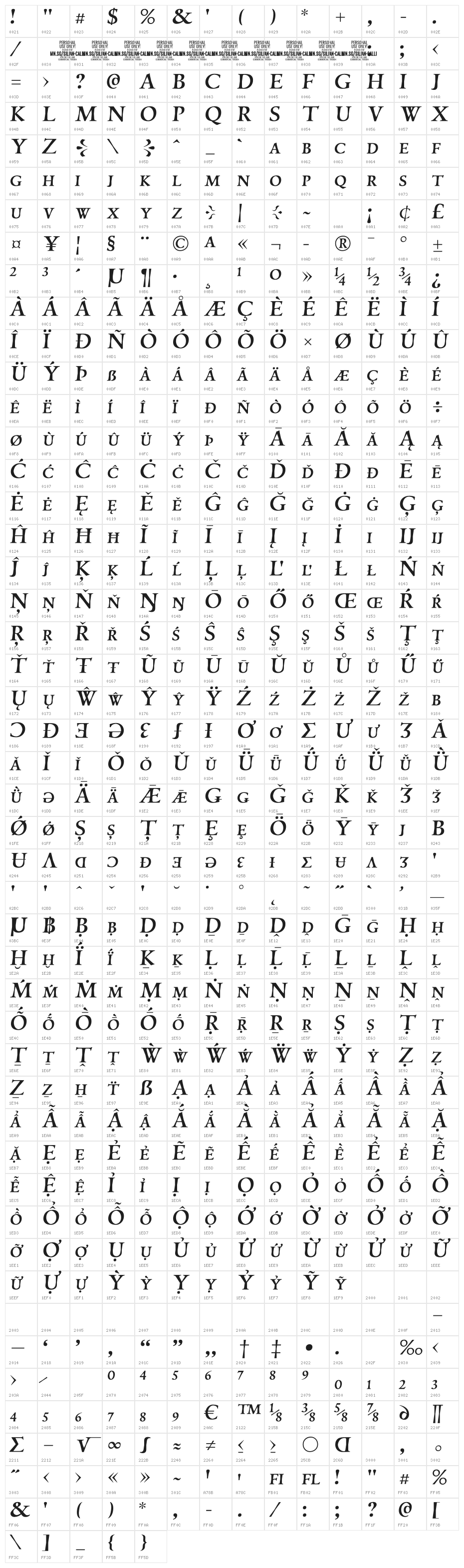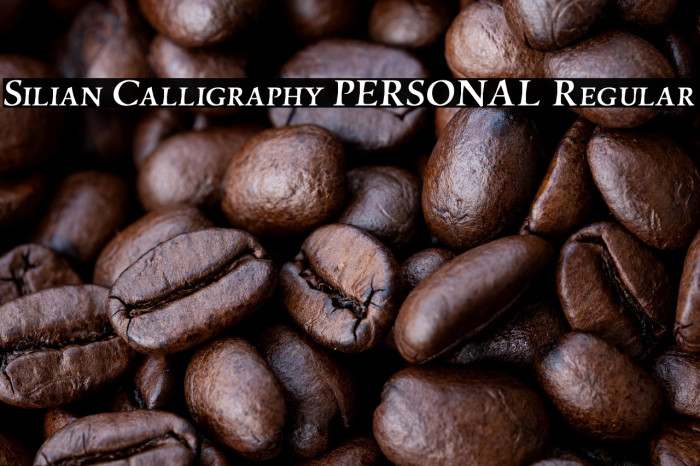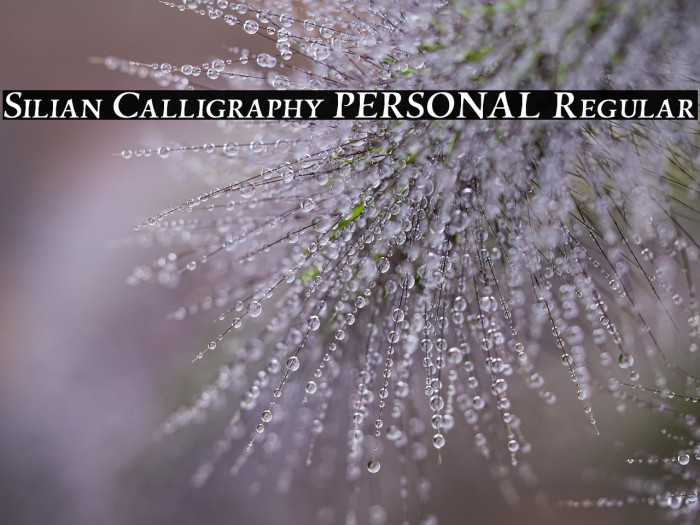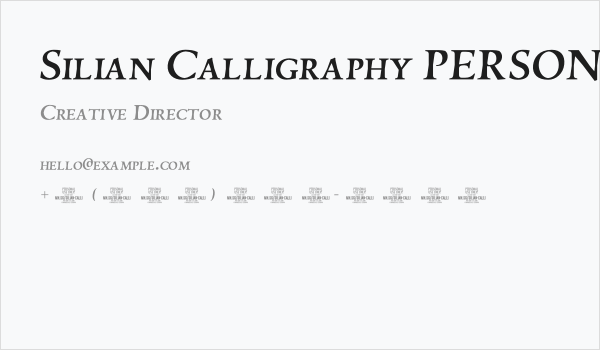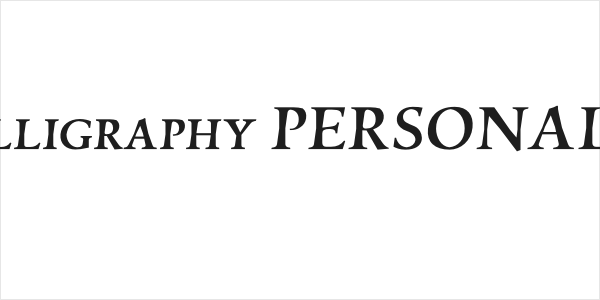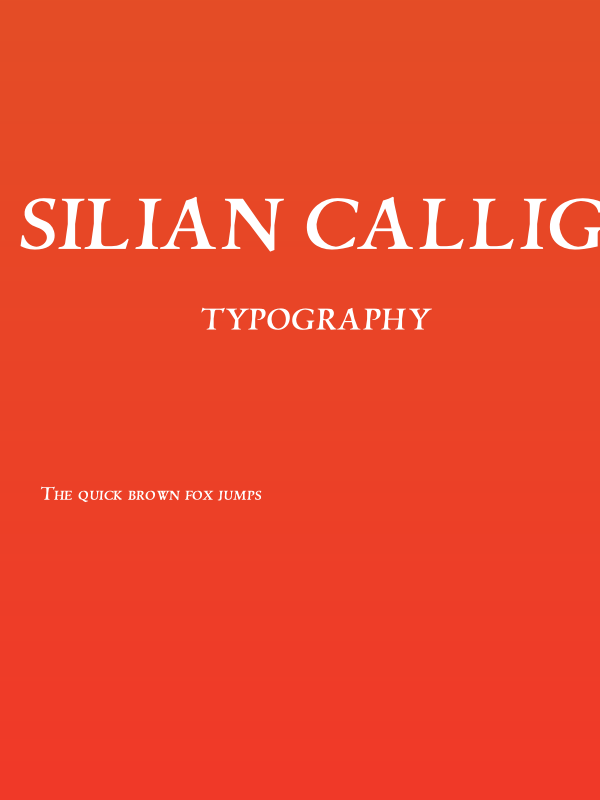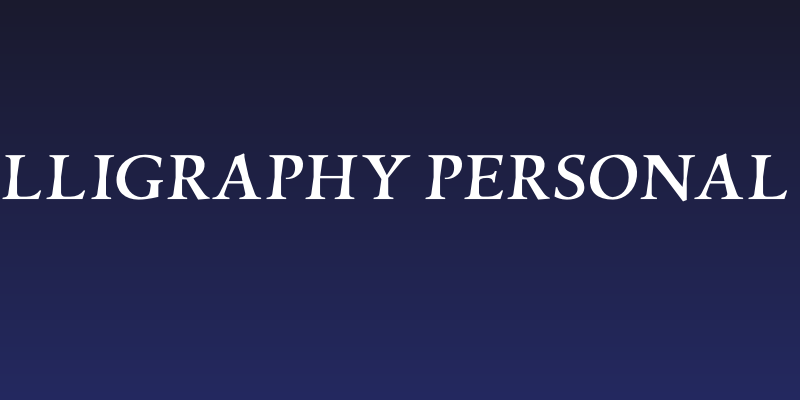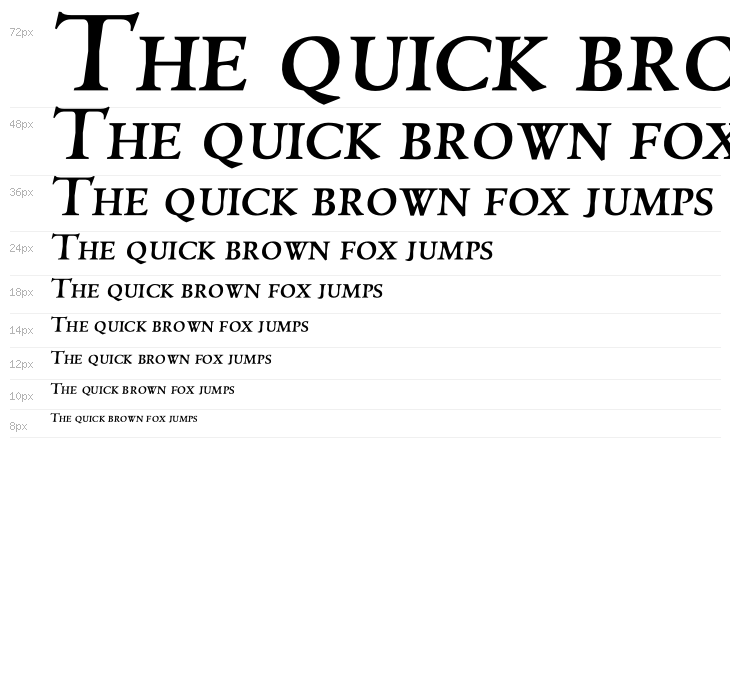
Silian Calligraphy PERSONAL Regular Font
Silian Calligraphy PERSONAL Regular Description
This font features a classic calligraphic style with elegant, sweeping strokes and a refined appearance. The uppercase letters exhibit a traditional serif design with a slight slant, giving them a dynamic and sophisticated look. The lowercase letters maintain a consistent style, complementing the uppercase with their graceful curves and balanced proportions. The numerals are clear and legible, matching the overall aesthetic. Special characters are designed with the same attention to detail, ensuring they blend seamlessly with the rest of the typeface. This font is ideal for projects that require a touch of elegance and tradition.
| Use Case | Headlines, Invitations, Formal documents |
| Proposed Projects | Ideal for wedding invitations, formal event programs, certificates, and branding materials that require a touch of elegance. |